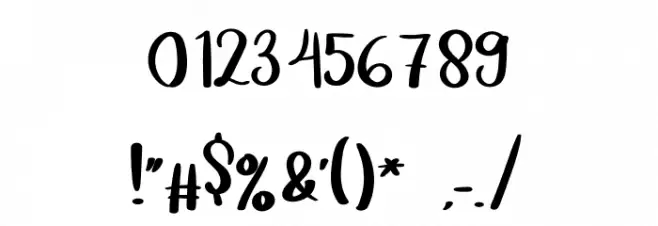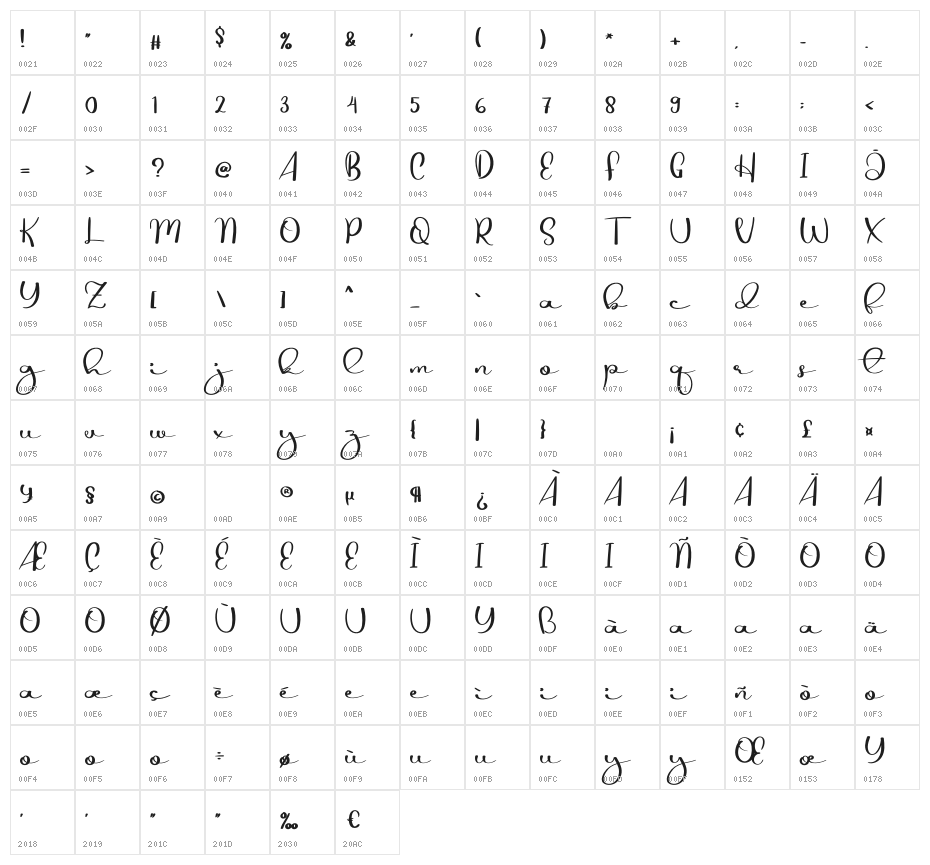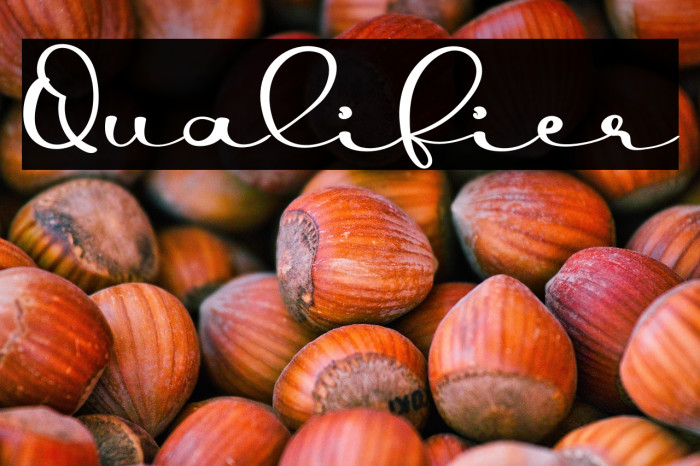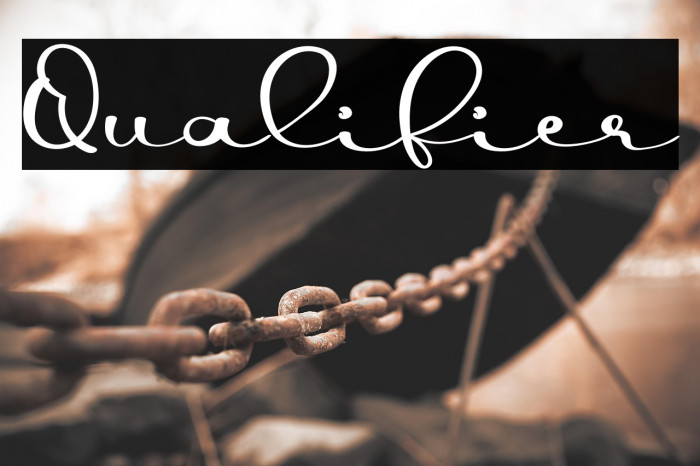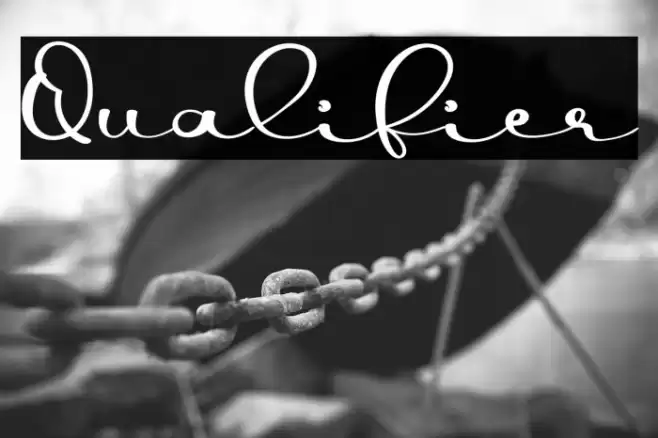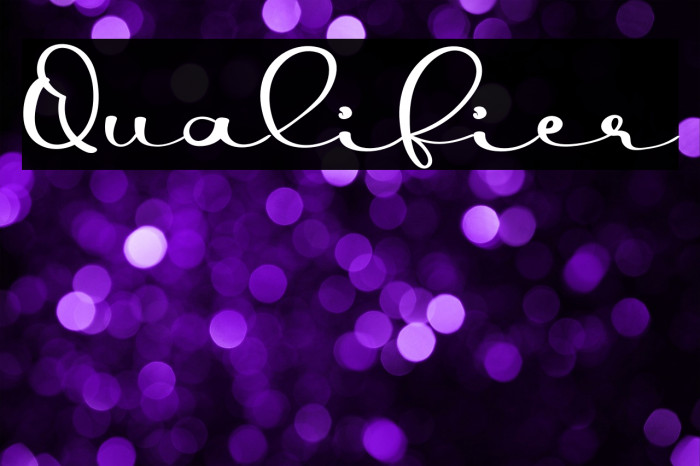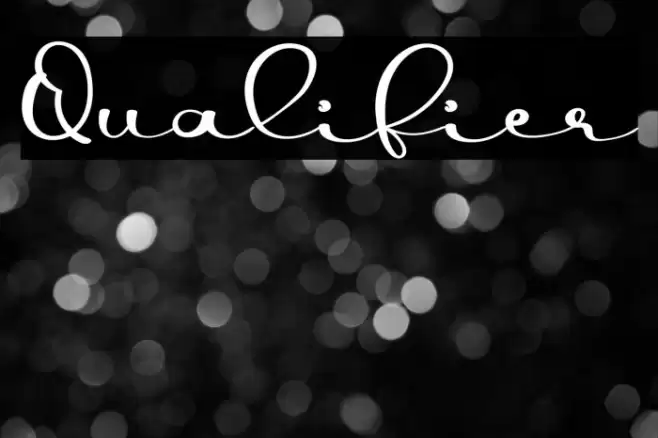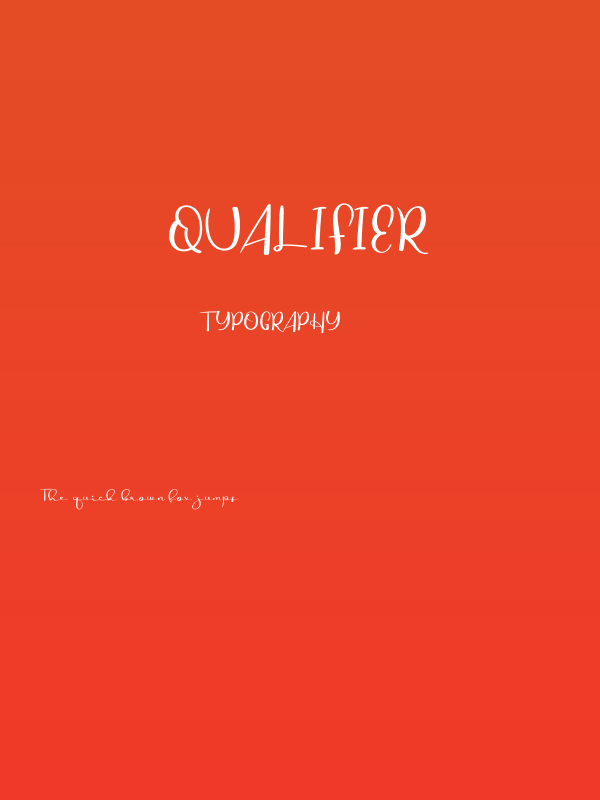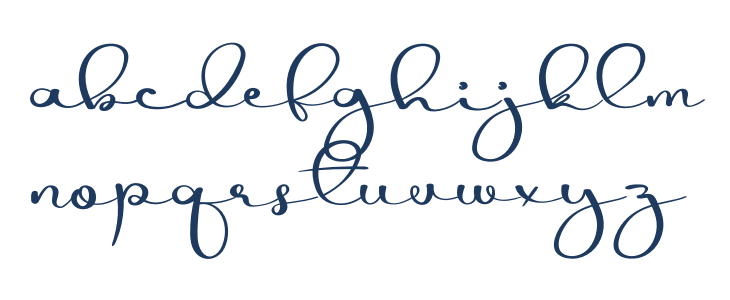
Qualifier Font
Qualifier Description
This font features a playful and whimsical style, combining elements of both script and display fonts. The uppercase letters are bold and slightly slanted, with a unique flair that adds character to each letterform. The lowercase letters are more fluid and connected, resembling a casual handwritten script. Numbers are bold and consistent with the uppercase style, maintaining readability. Special characters are creatively designed, fitting seamlessly with the overall aesthetic. This font exudes a sense of fun and creativity, making it ideal for projects that require a touch of personality and charm.
| Proposed Projects | Ideal for greeting cards, invitations, playful branding, and creative posters. |